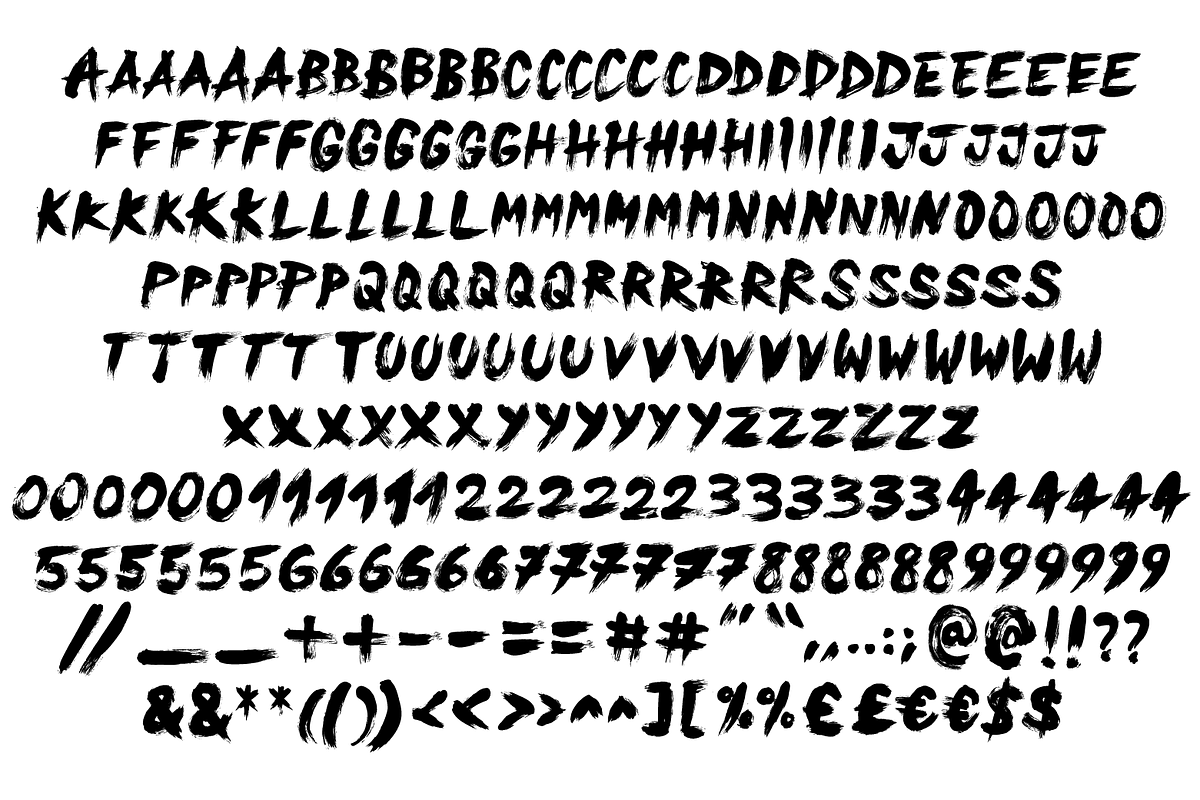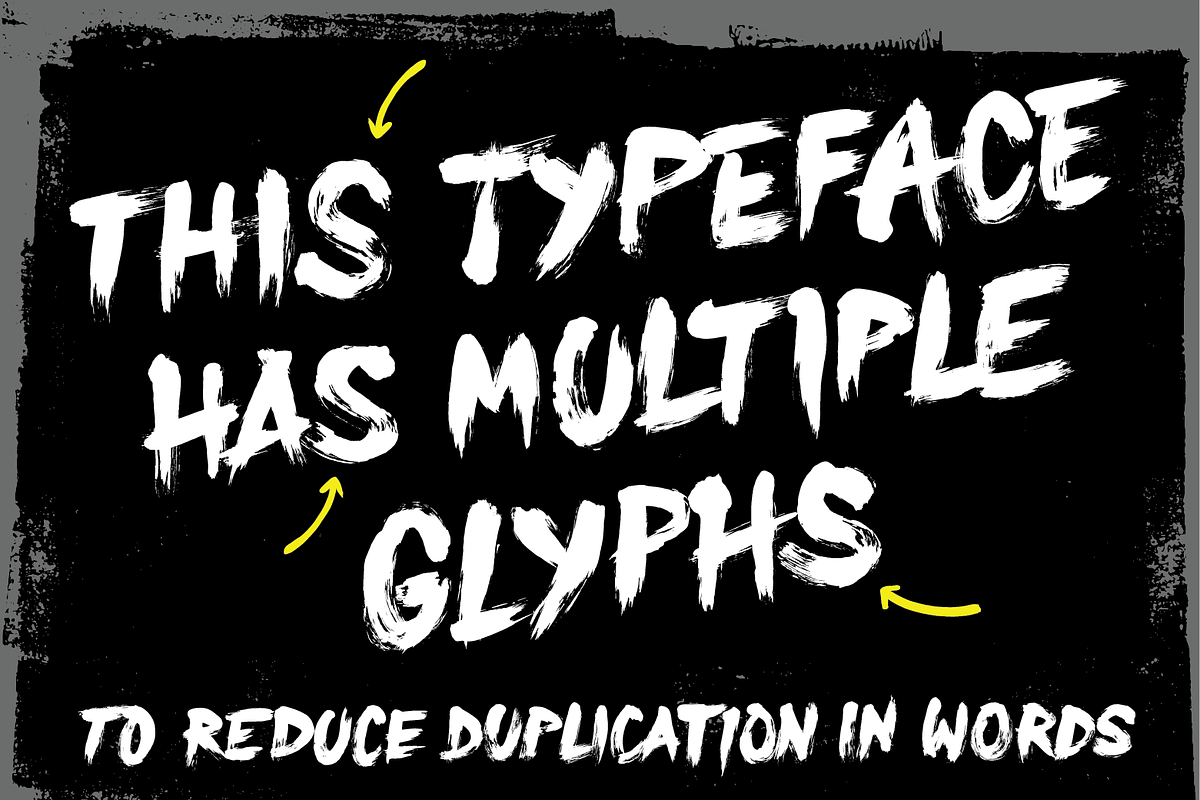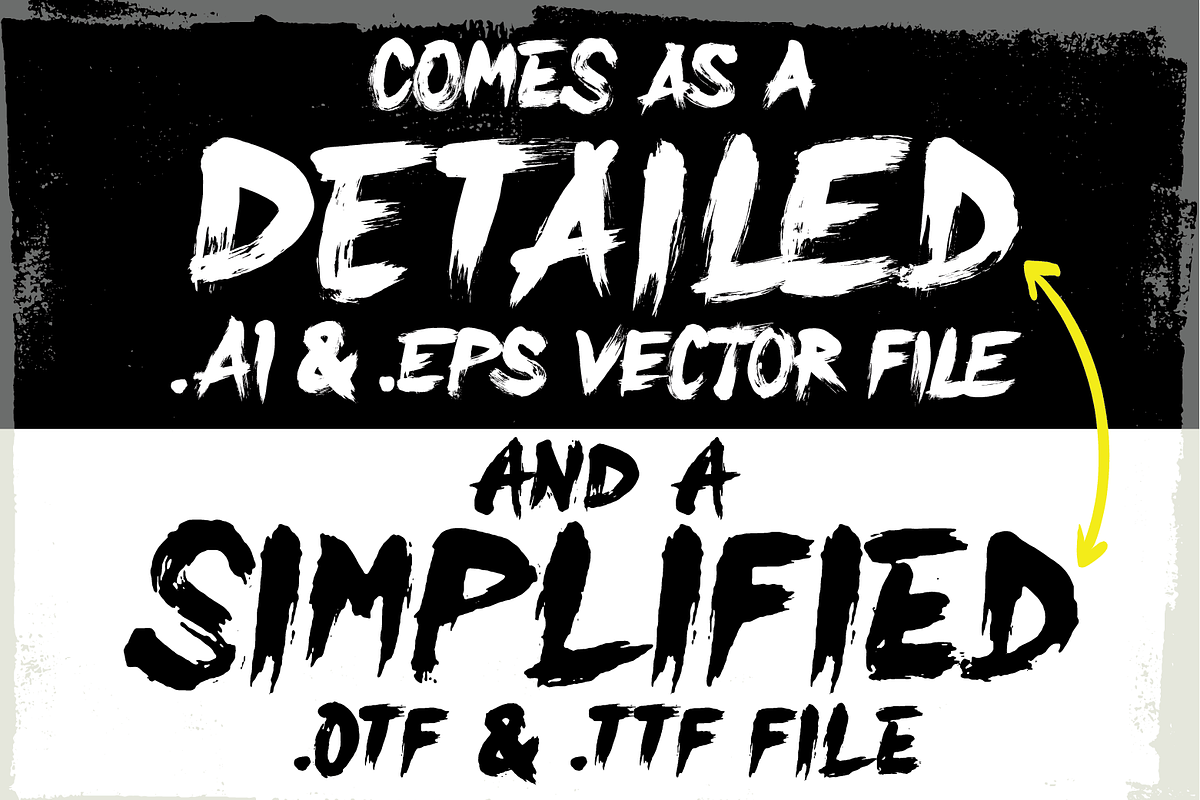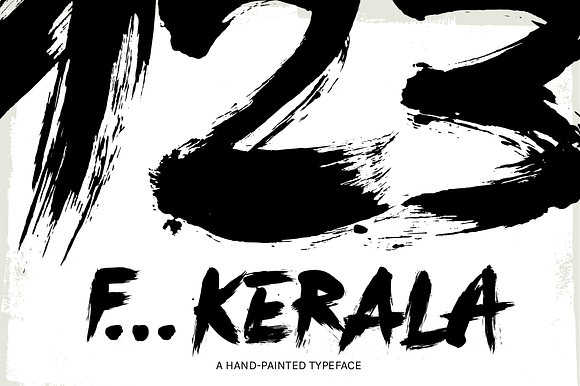
F... Kerala
We love getting our hands dirty so that you don’t have to… In fact we love marks, splatters and drips so much that we decided to find a way to keep as much of the hand-painted detail as possible to help you create that authentically painted look without making a mess.
Wanting a more realistic hand-made feel? We’ve also included alternative versions of each glyph to reduce duplication. We think this gives a feel that someone has created each word rather than it being a bought typeface - As much as possible anyway!
- We’ve also included alternative versions of each glyph to reduce duplication.